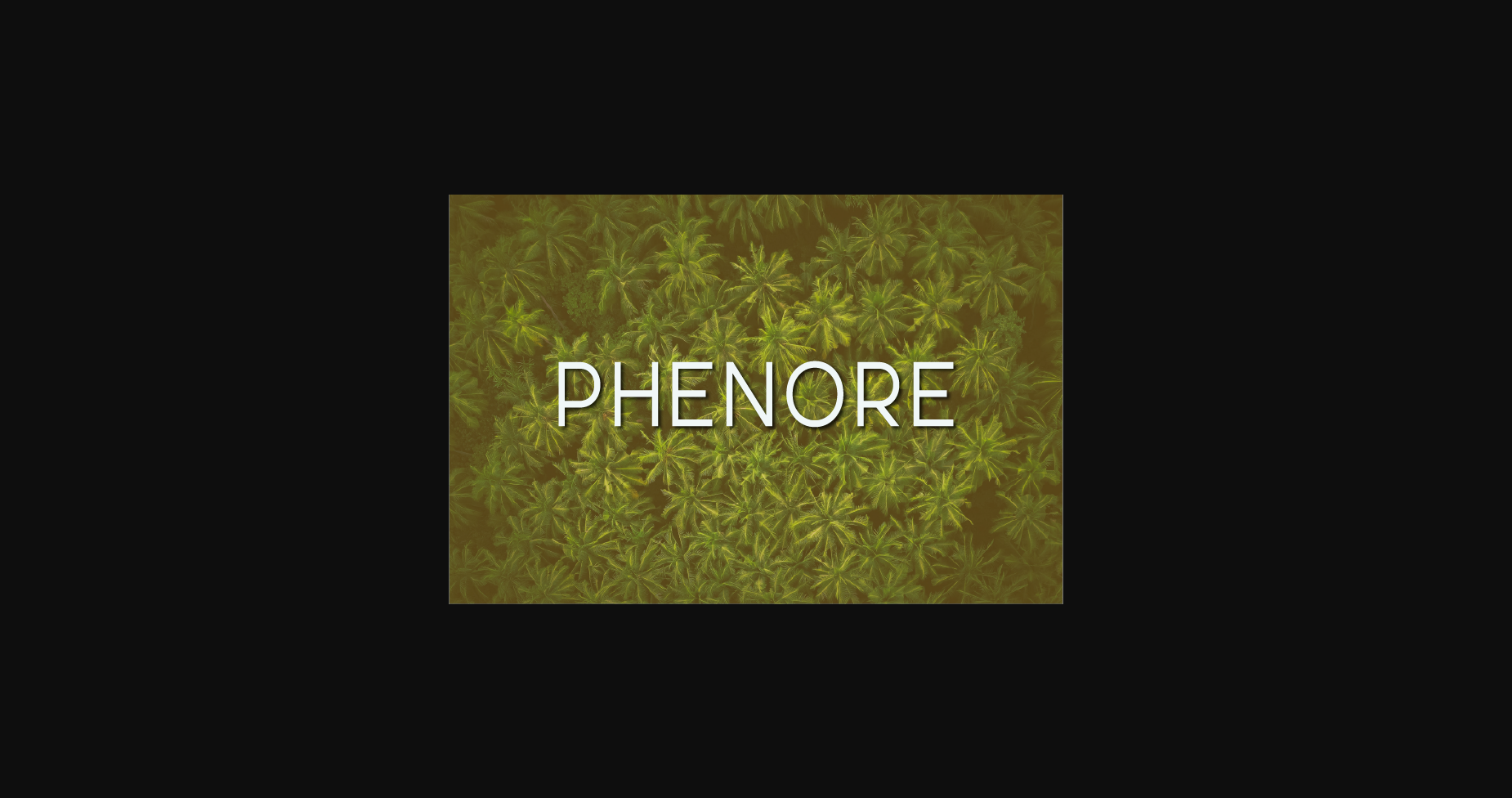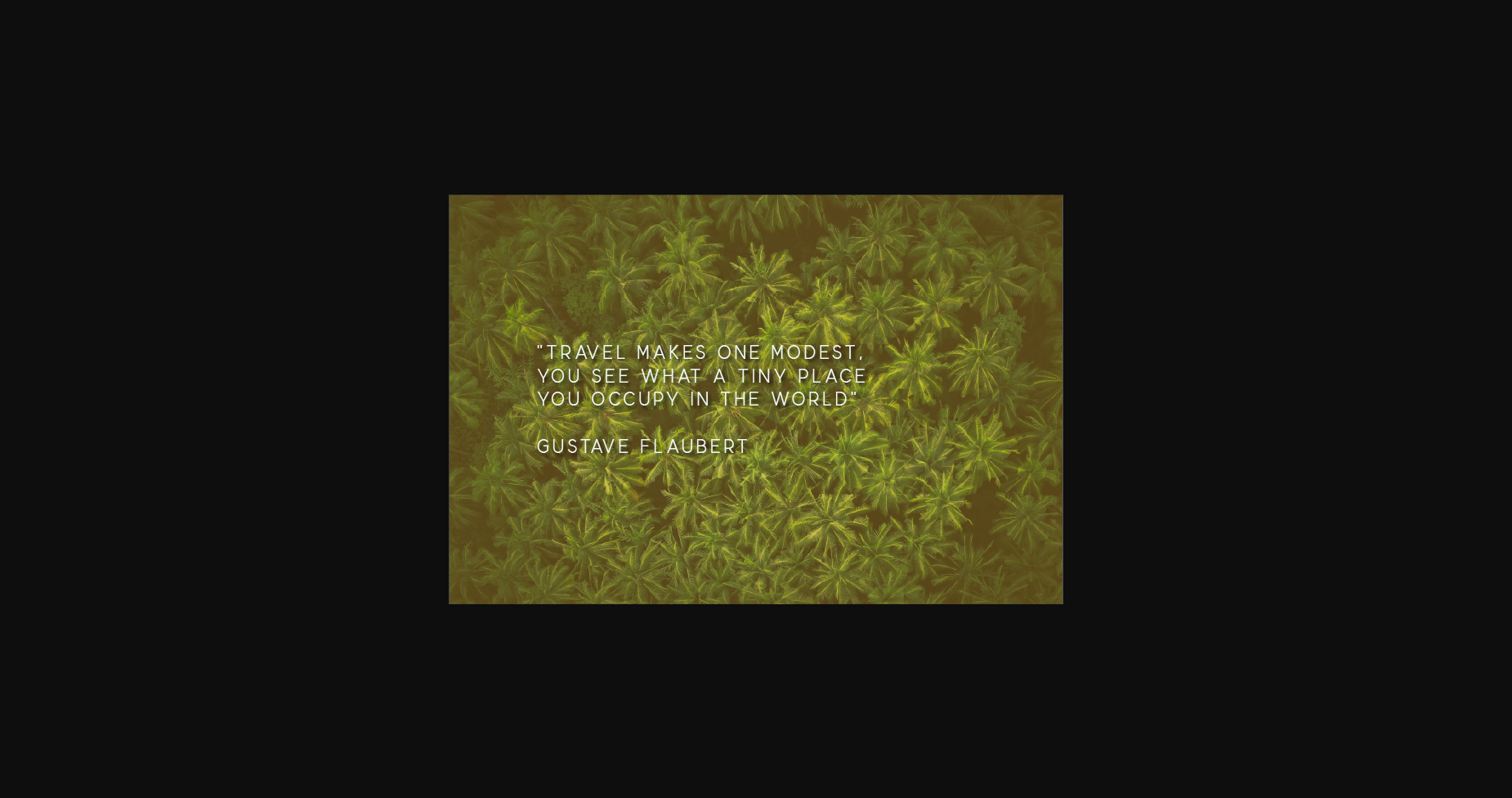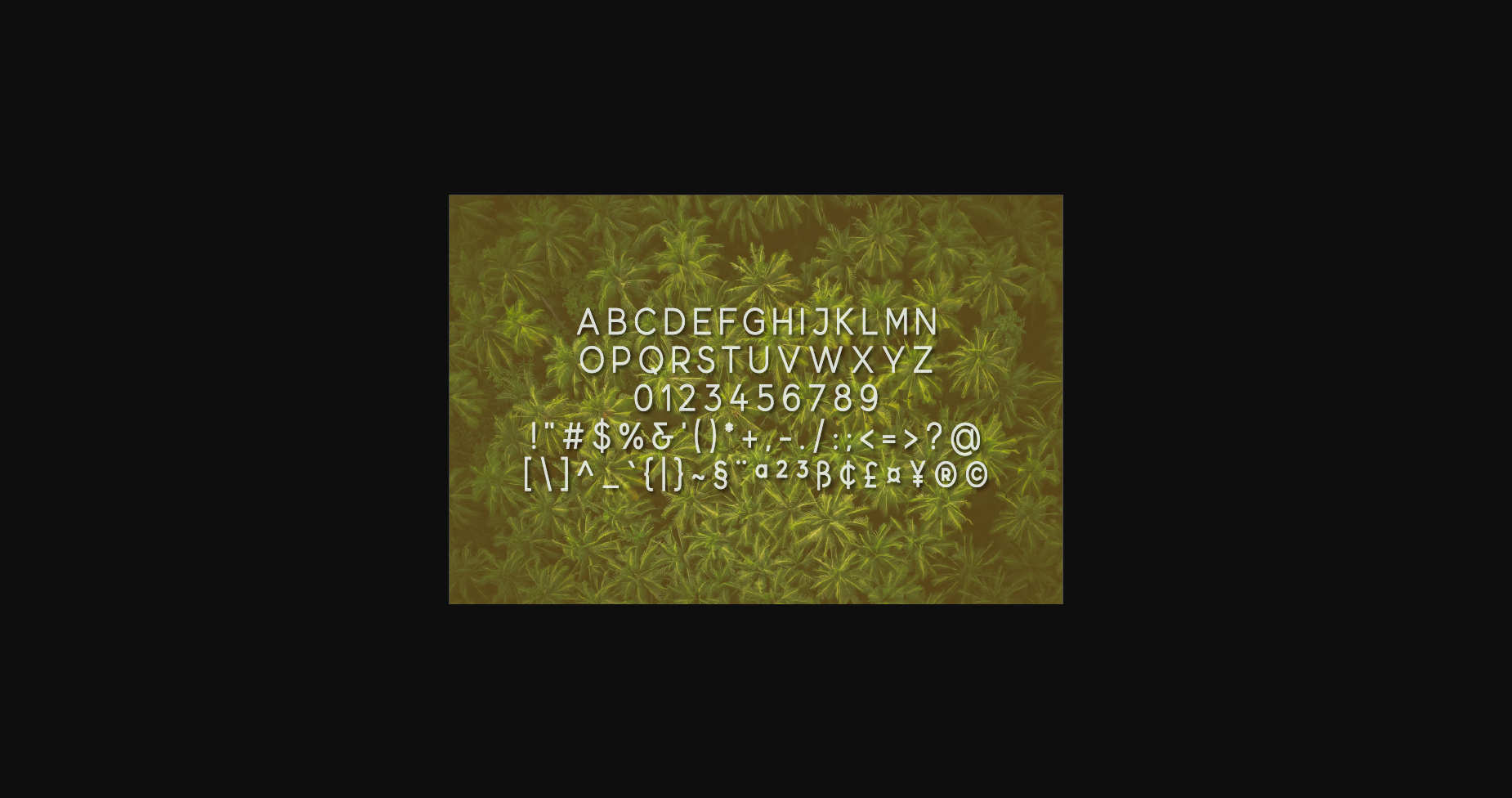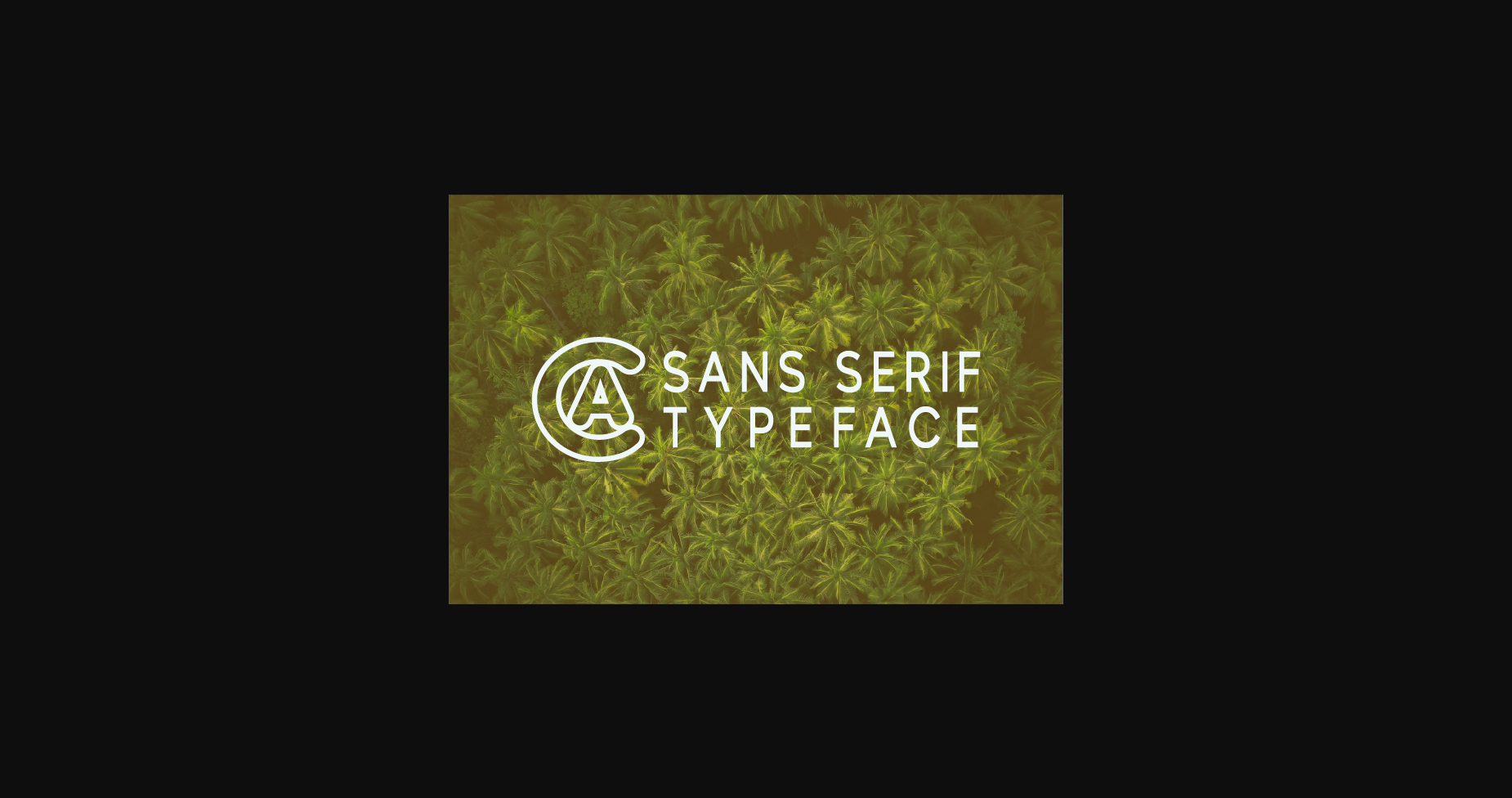
HomeSans Serif FontsPhenore Font Sans Serif Fonts Phenore Font FacebookXPinterestWhatsApp 1 of 6 ... Phenore Font Poster 2... Phenore Font Poster 3... Phenore Font Poster 4... Phenore Font Poster 5... Phenore Font Poster 6... About Phenore Font Phenore is a minimal and neat sans serif font. This font is ideal for writing web designs, business cards, or pretty much anything else that requires a unique touch. DOWNLOAD NOW People also explored Claudey Font About Redgar Slab Font Angika Jaya Font Progbeline Font Heart Font Handuras Font Sthefany Font Gelowing Font Mondera Font 305 0 TagsPhenorePhenore Font Previous articleWalnoty FontNext articleHolfetry Font LEAVE A REPLY Cancel reply Comment: Please enter your comment! Name:* Please enter your name here Email:* You have entered an incorrect email address! Please enter your email address here Website: Save my name, email, and website in this browser for the next time I comment. Personal Use Free Unicorn Kids Personal Use Free Read more about this font Beat My Guest Personal Use Free Read more about this font Indonesia Dermawan Personal Use Free Read more about this font Ryujin Attack Personal Use Free Read more about this font BLOG Fonts That Capture the Spirit of New York City New York City is more than just a place—it’s an experience, a rhythm, a visual language... Free vs Paid Fonts: Why Investing in Premium Fonts Is Worth It Transform Your Website: Elevate Your Typography with 7 Best Web Font Generators Elegant Wedding Invitation Fonts – Handwritten & Script Fonts